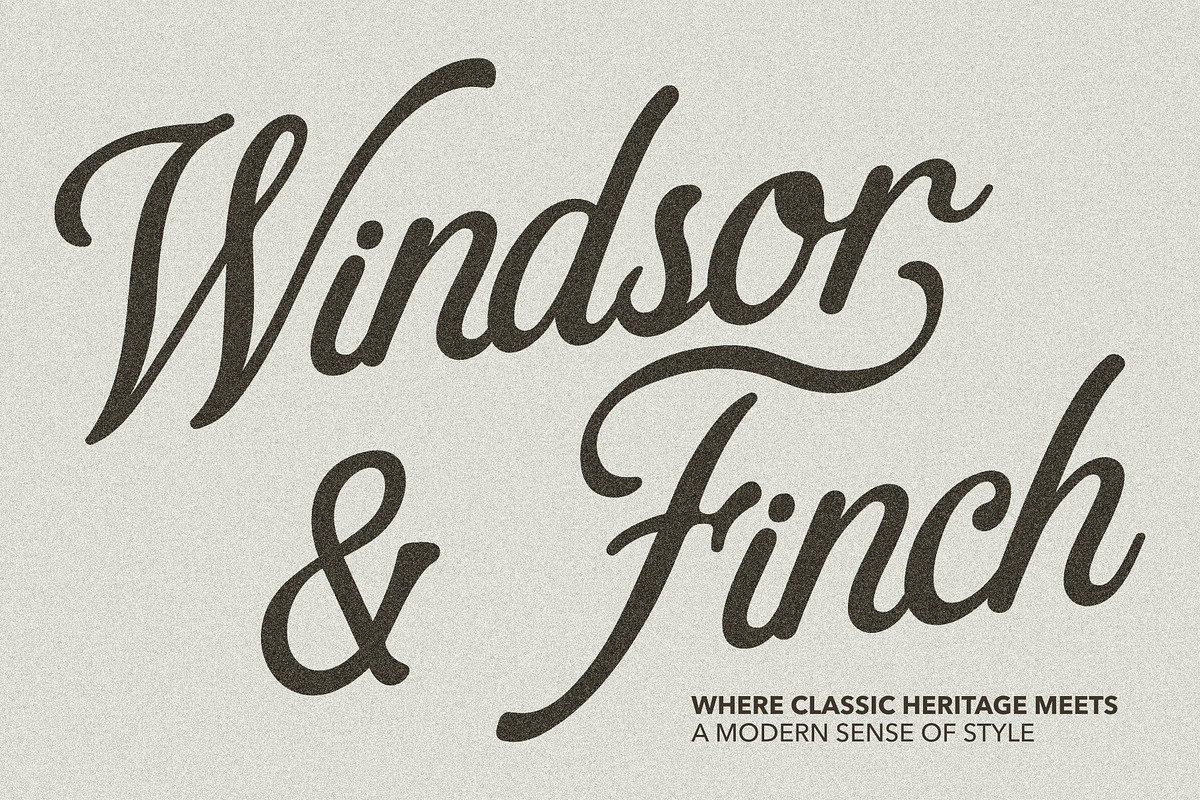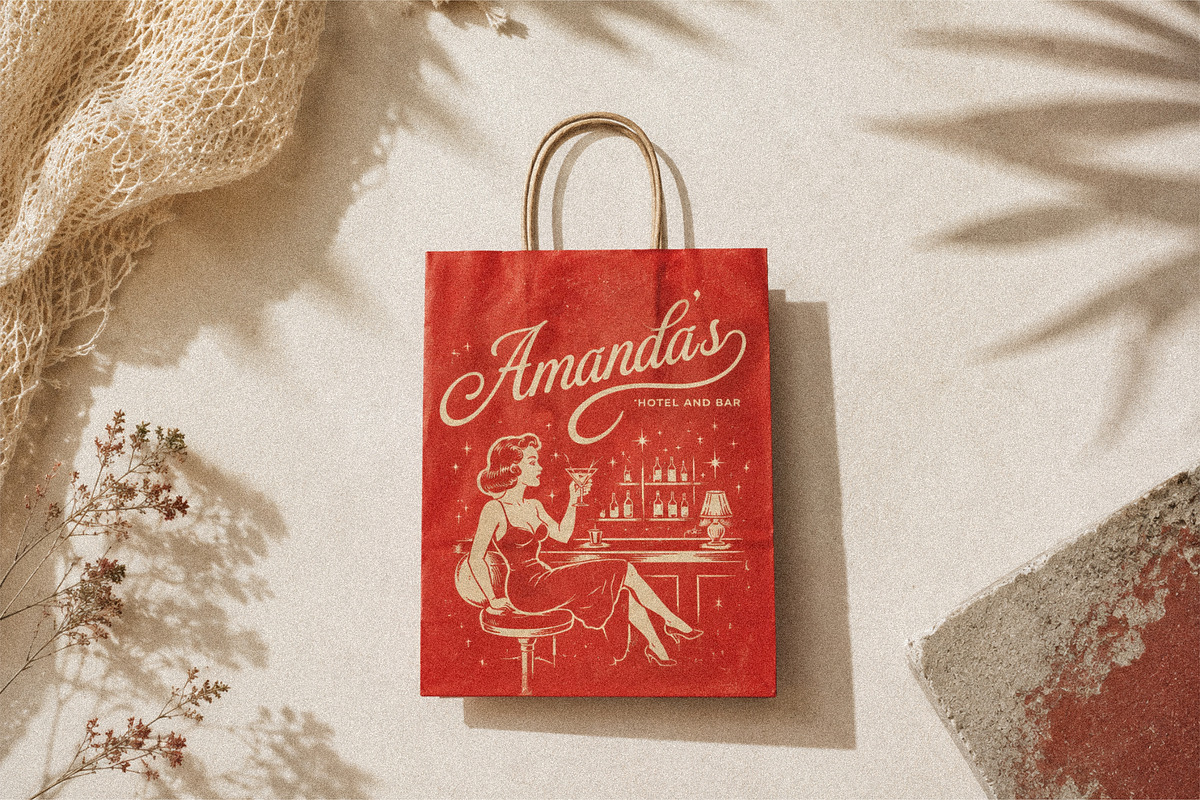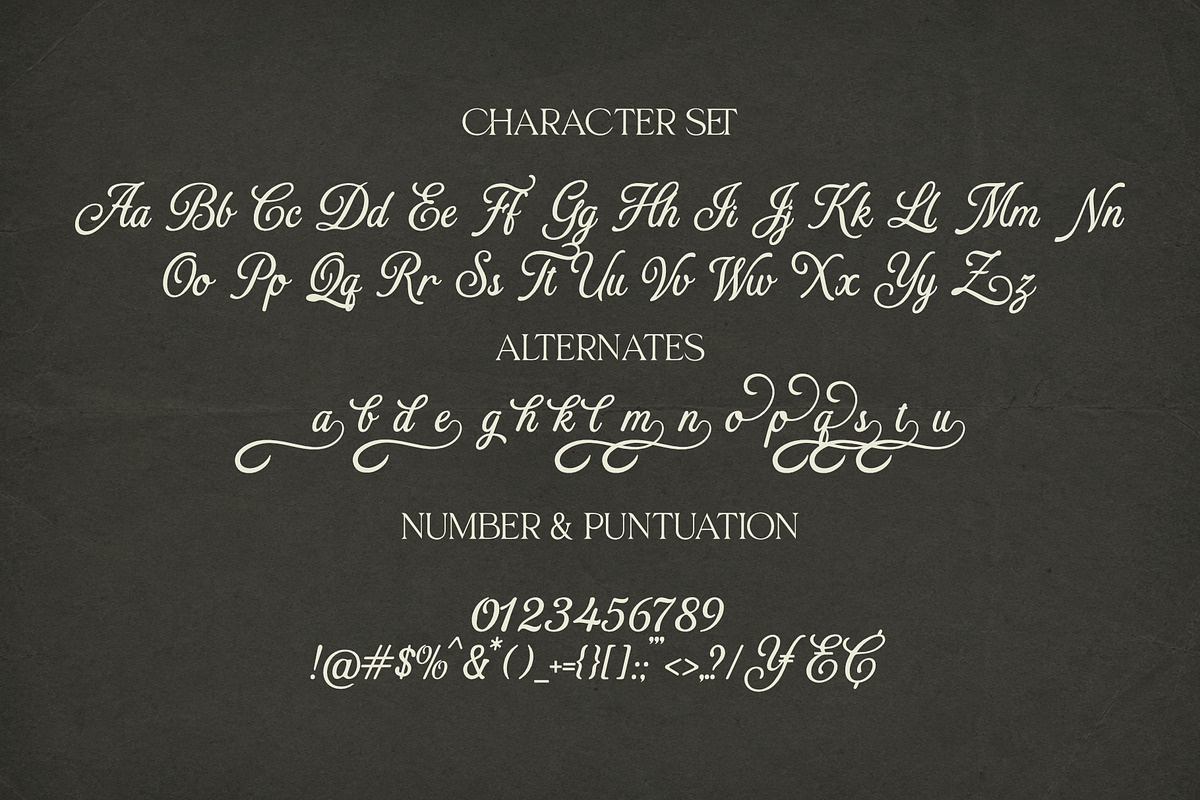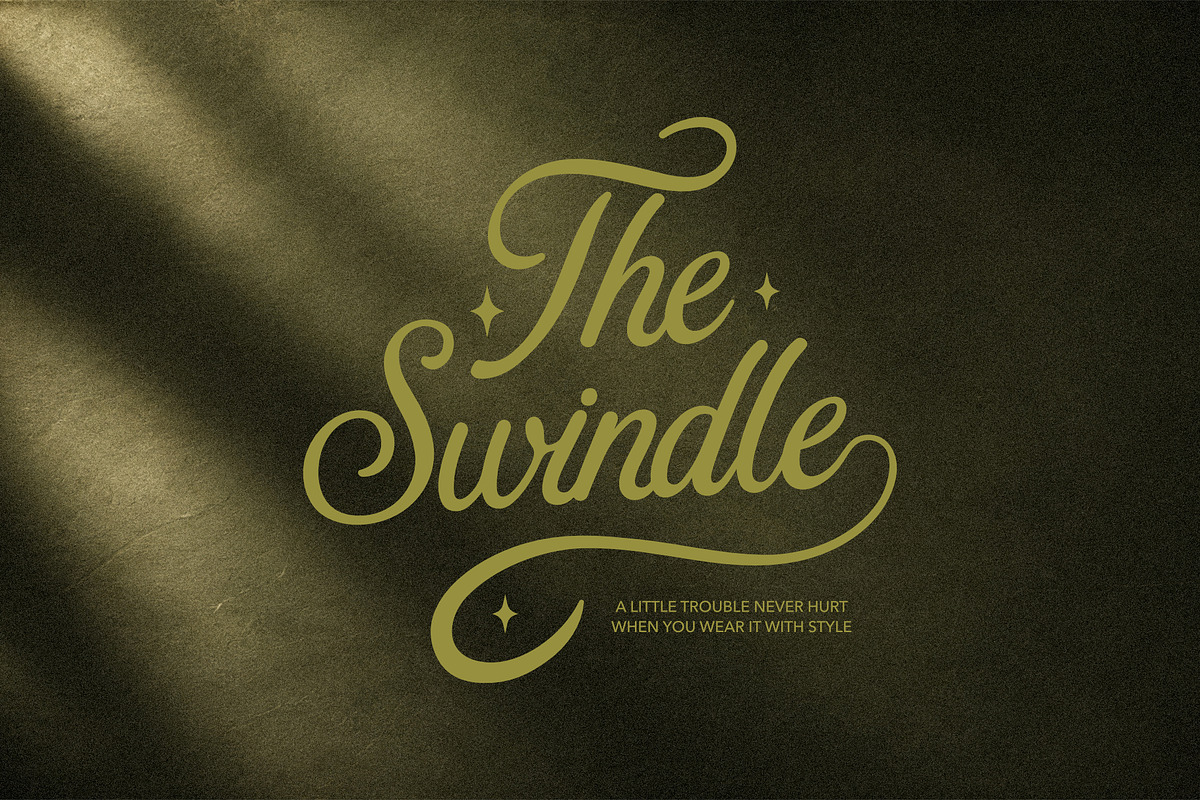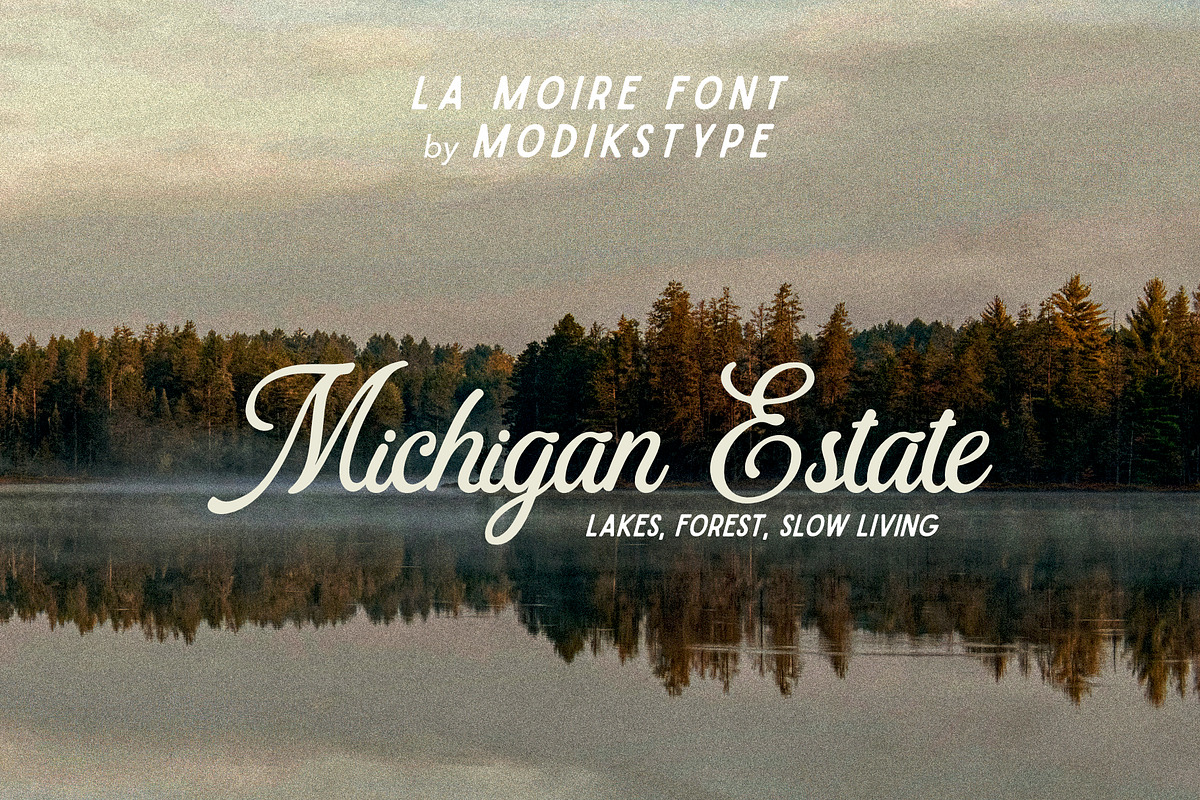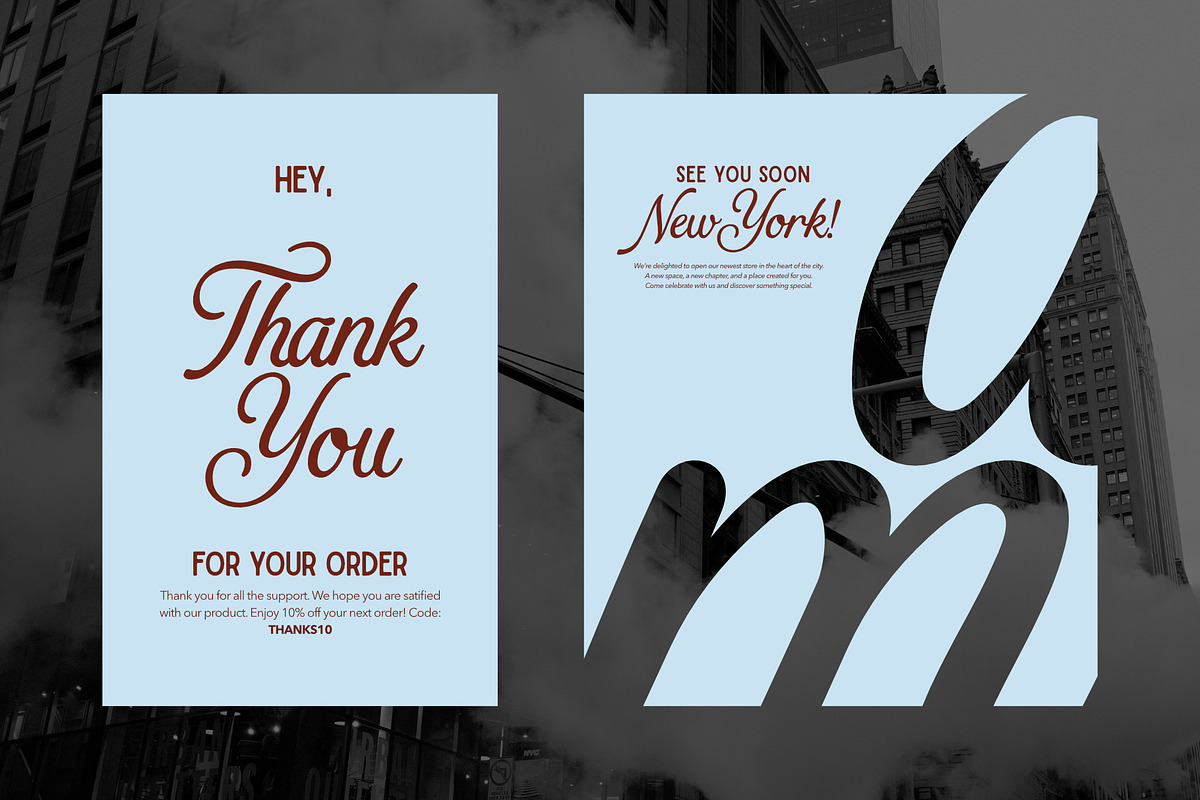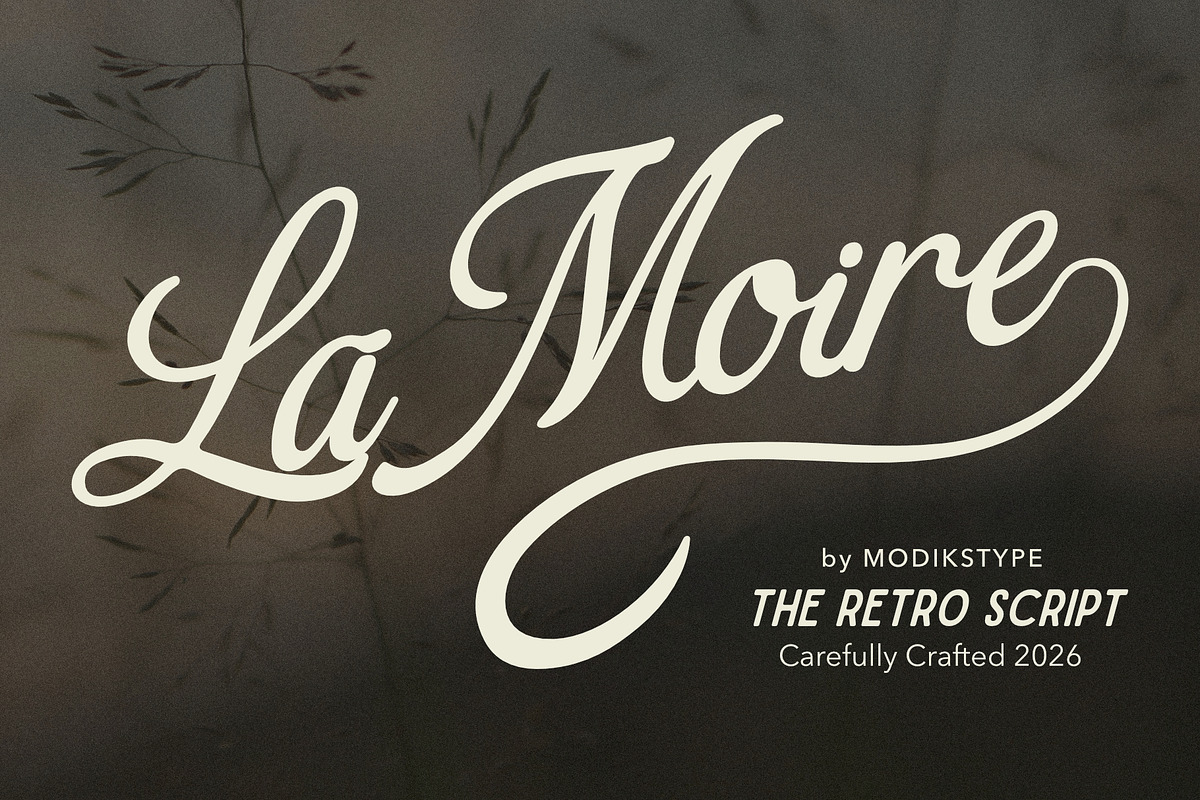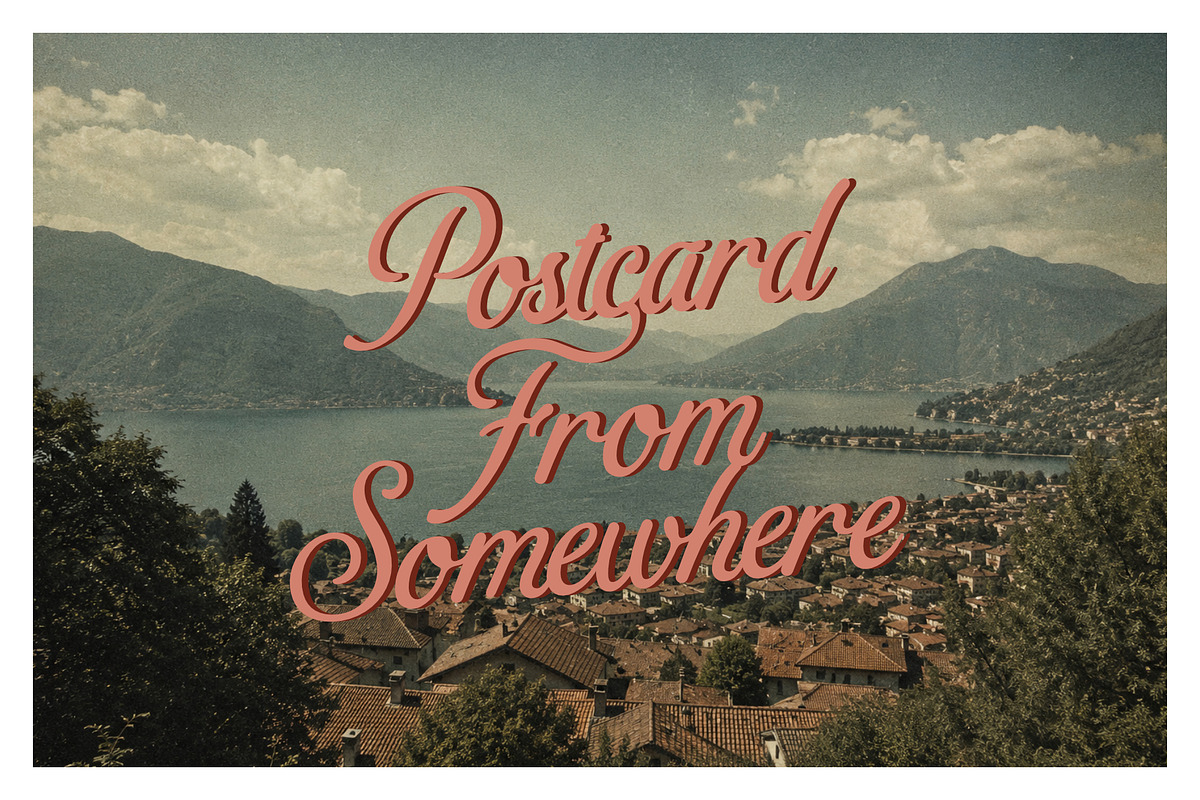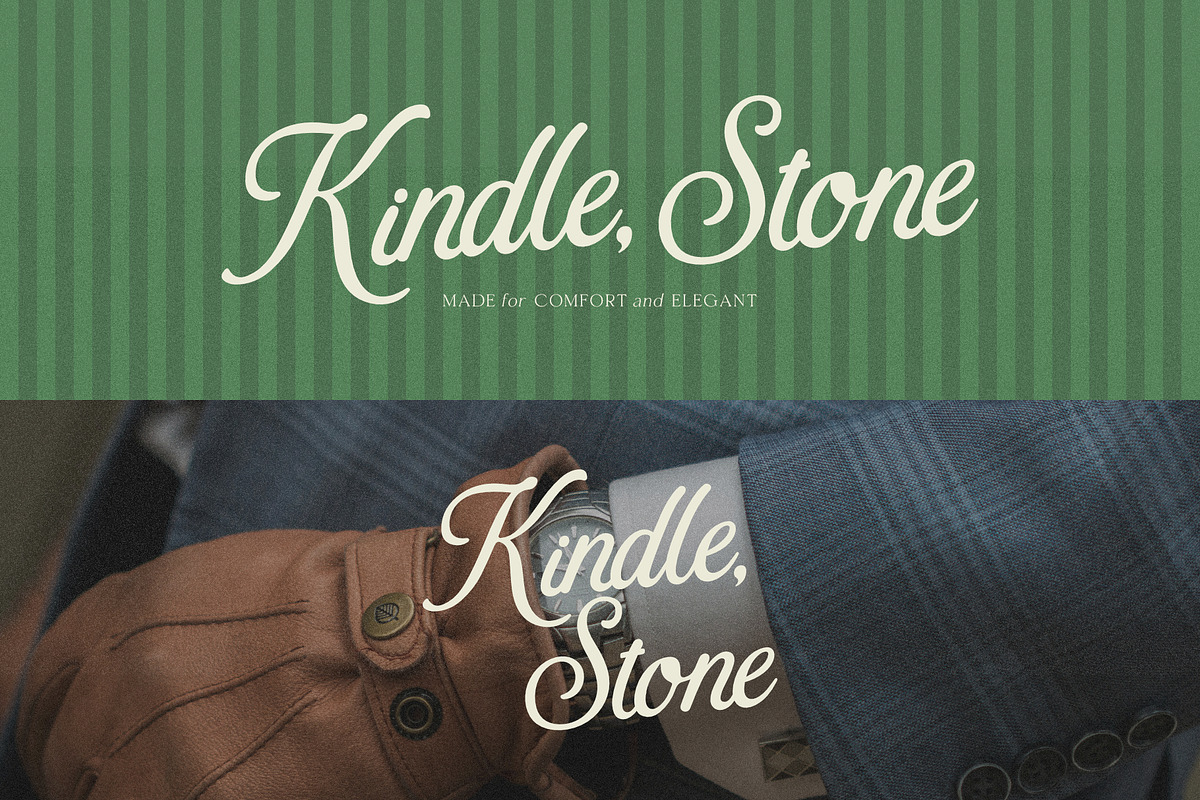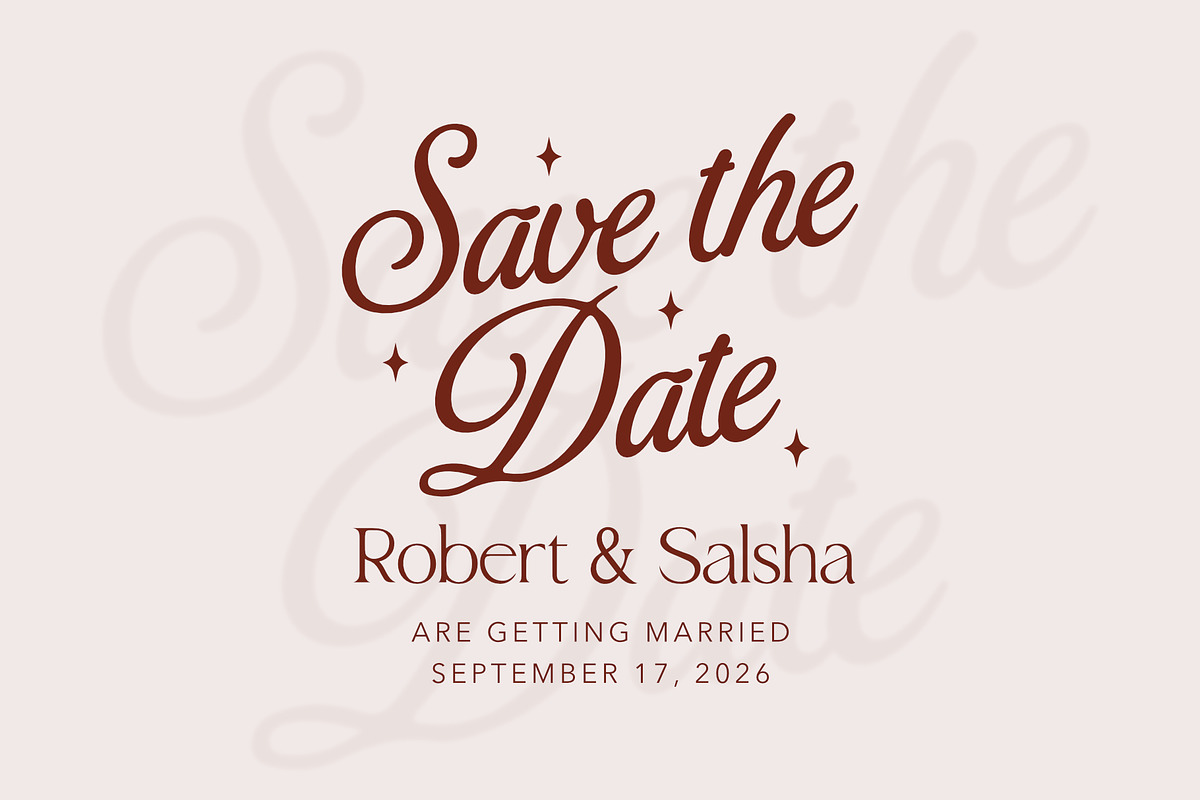
La Moire – The Retro Script Font
La Moire is an elegant retro script typeface inspired by timeless lettering, vintage advertising, classic signage, and sophisticated mid-century typography.
Featuring graceful curves, distinctive uppercase characters, smooth connections, and expressive letterforms, La Moire brings a warm nostalgic personality while remaining refined enough for modern design projects.
Its versatile character makes it perfect for logos, branding, packaging, wedding stationery, invitations, fashion labels, restaurant and hotel identities, editorial layouts, posters, postcards, social media graphics, and merchandise.
Whether you're creating a romantic wedding identity, an elegant heritage brand, or a vintage-inspired travel poster, La Moire adds a distinctive handcrafted character to your typography.
Logo & brand identity, Packaging design, Wedding invitations & stationery, Fashion & beauty branding, Hotel, restaurant & café branding, Vintage posters & postcards, Editorial design, Social media graphics, Labels & merchandise, Retro-inspired advertising
La Moire combines classic script elegance with a relaxed vintage spirit — carefully crafted for designers who love timeless typography with personality.